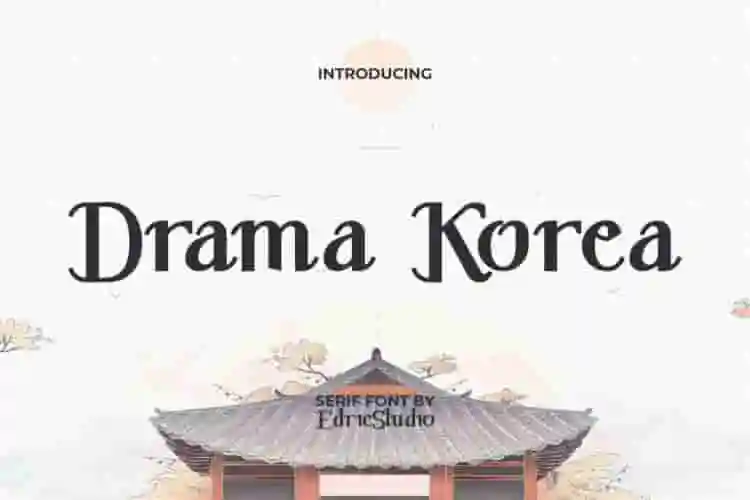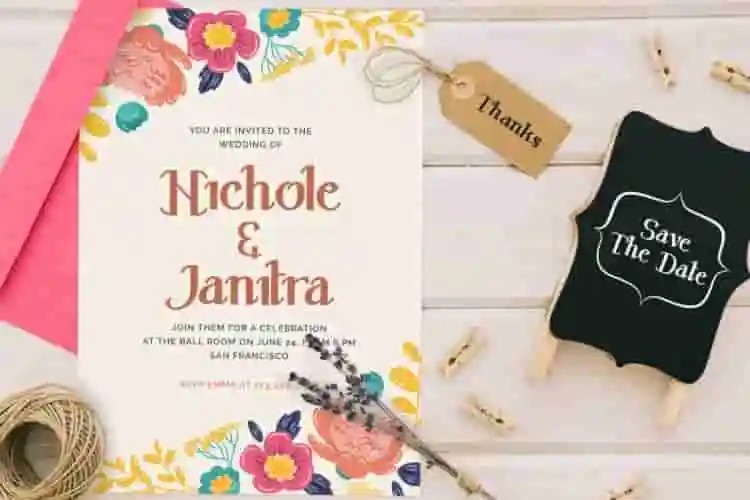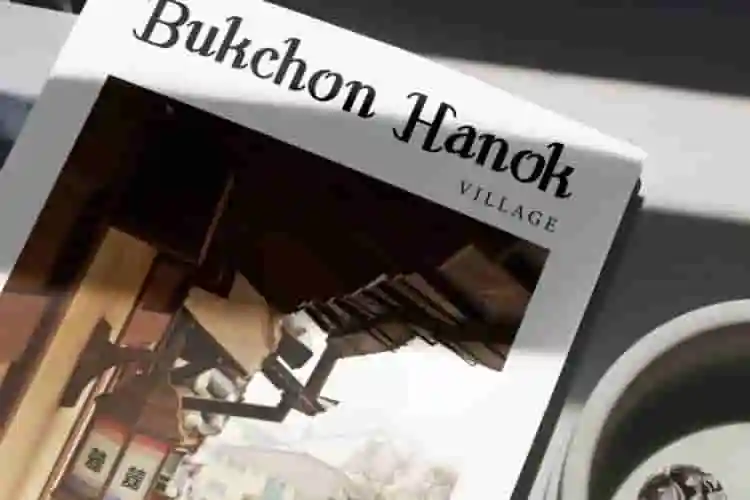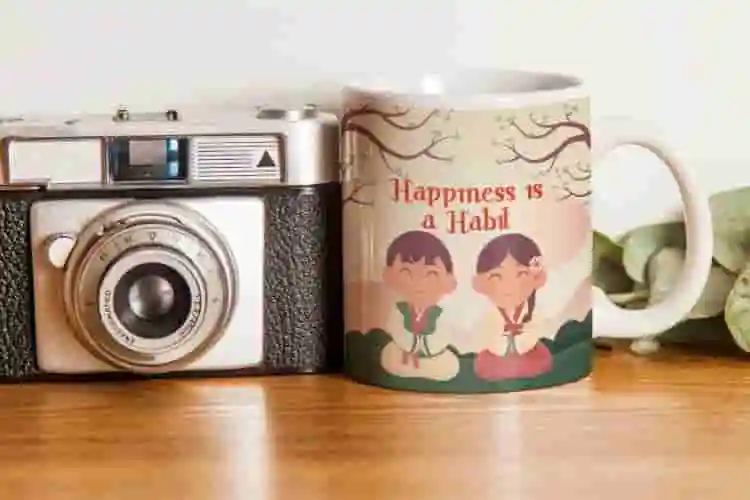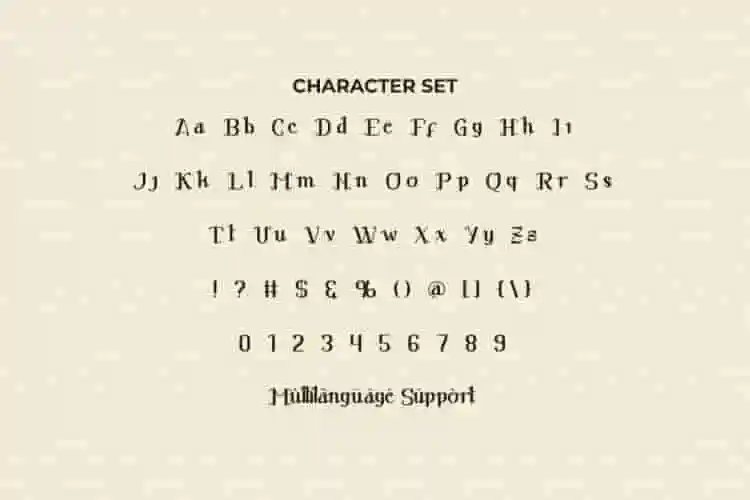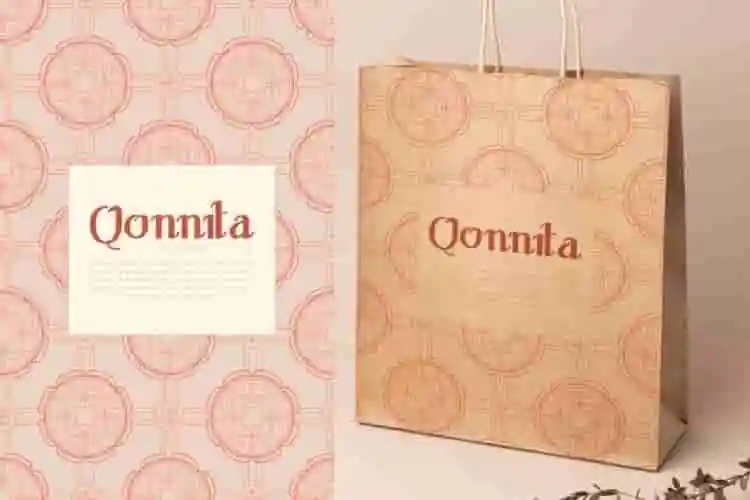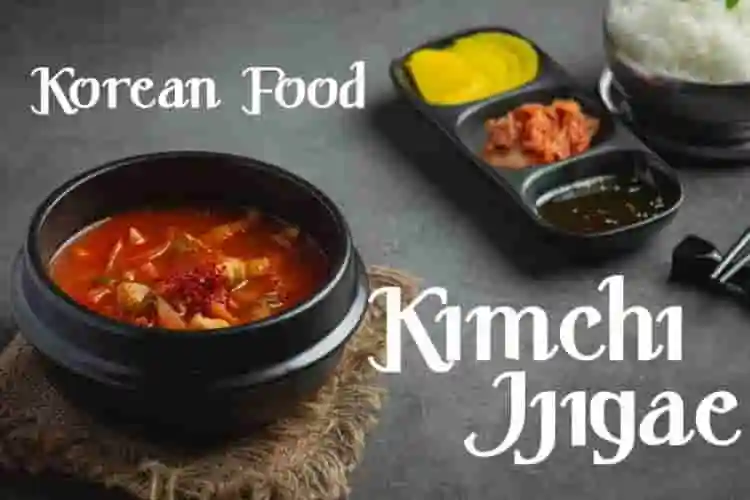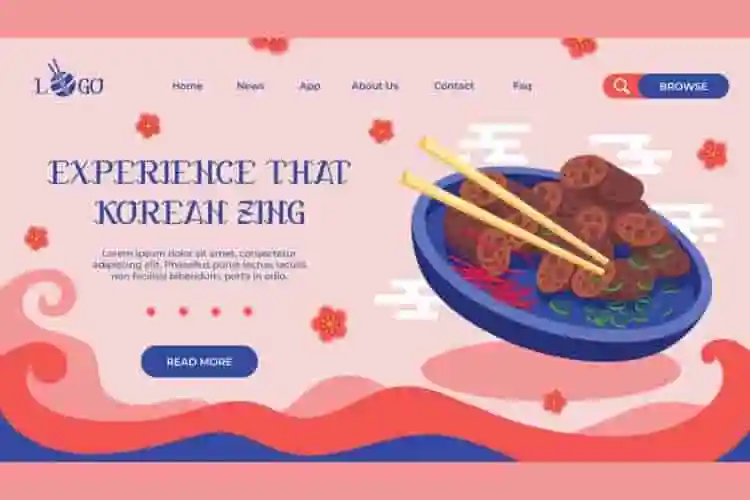
Drama Korea Font is a cultural stylish modern serif font inspired from Korean series titles so that its appearance reminds us at least of the writing style of the people there. It is capable of increasing artistic value so it will be suitable for any industry, such as accessories, advertisement, café, clothing brand, content creator, entertainment, event or festival, fashion, film, graphic design, handicraft, lodging, movie, photography, printing, publishing, restaurant, wedding, writer, and many more.
Drama Korea Font comes with a full set of Uppercase and Lowercase Basic Characters, Number, a large range of Punctuation and Symbol. It will be perfect for any project, including: billboard, brand logo, brochure, business card, cover, flyer, greeting card, header, invitation, label, menu pamphlet, packaging design, poster, quotes, screen print, signage, stationery, sticker, title, website, etc.
Introducing Drama Korea, a beautiful serif font that captures the emotional depth and elegance of Korean drama aesthetics. With graceful curves, delicate serifs, and a timeless feel, this font brings a sense of romance, sophistication, and softness to any design.
Step into a world of beauty and emotion with Drama Korea, a stunning serif font inspired by the soft visuals and heartfelt stories of Korean dramas. With its elegant curves, fine contrast, and timeless style.
- Elegant Serif Style
- Perfect for Romance & Lifestyle